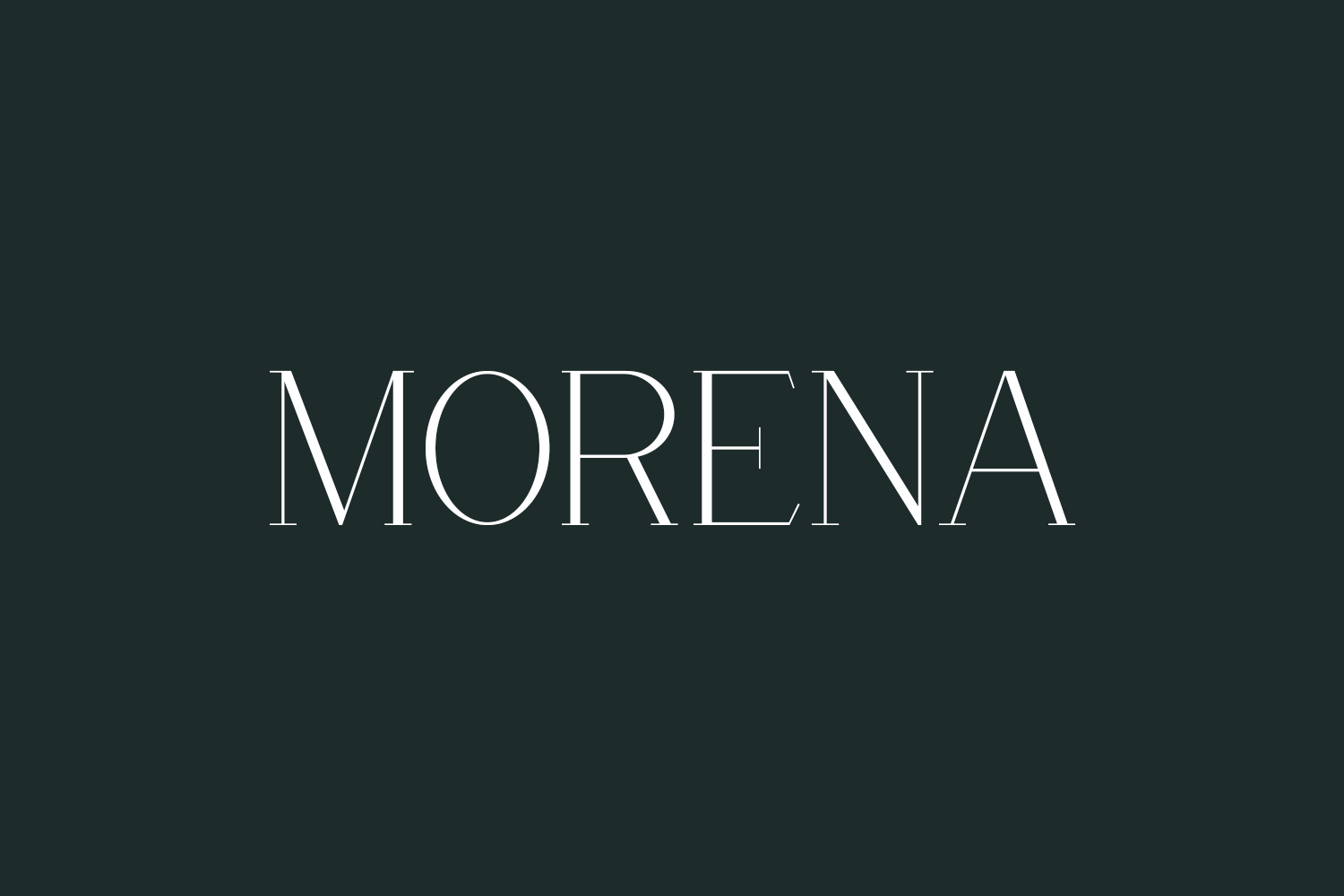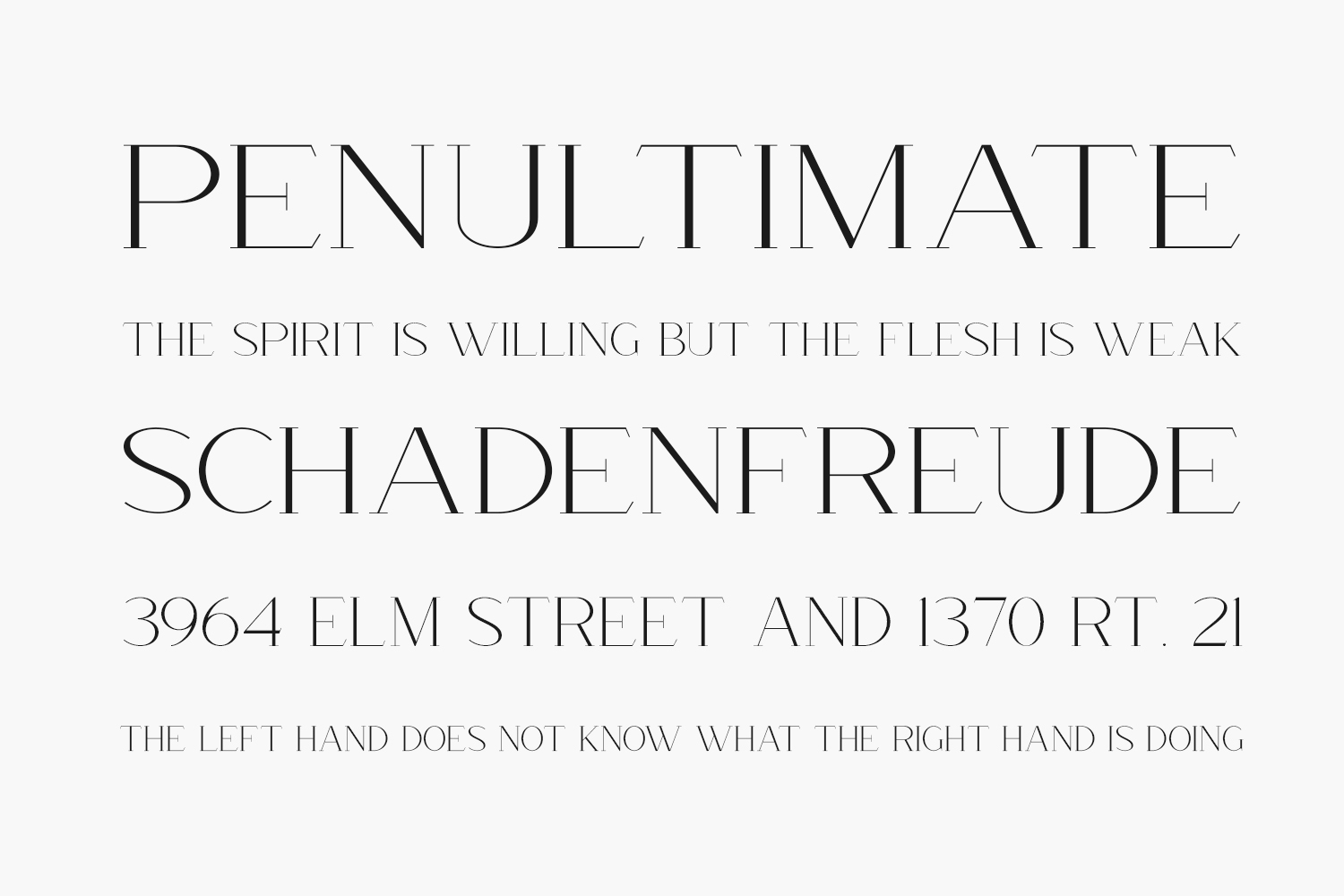
Morena Free Font consists of two fonts designed to complement each other perfectly. Together or apart, these fonts are ideal for adding a chic and cheery touch to your crafts.
Designed by Pen Culture